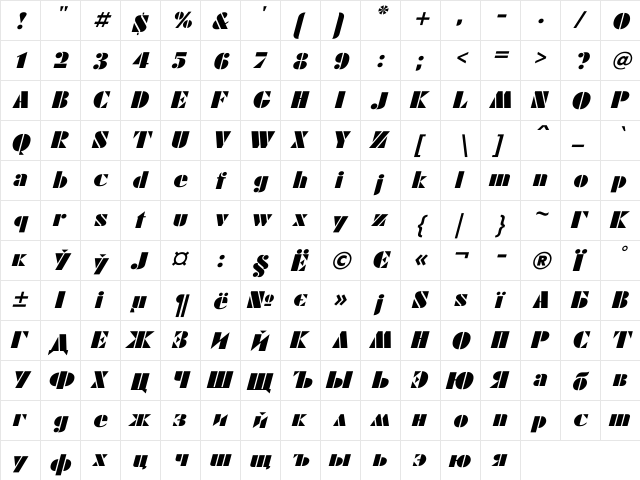
FuturaEugenia Italic
Design Context for FuturaEugenia Typeface
FuturaEugenia channels digital-age aesthetics through its sharp, structured letterforms — ideal for brands that want to signal innovation. The dynamic lean of this cut emphasises speed and emphasis in any layout.